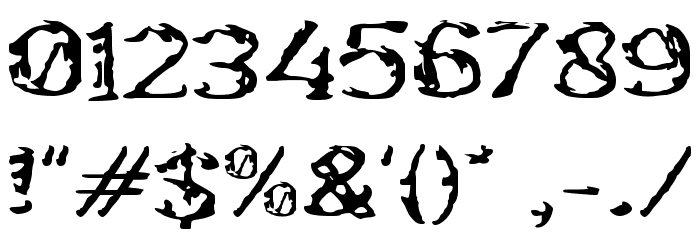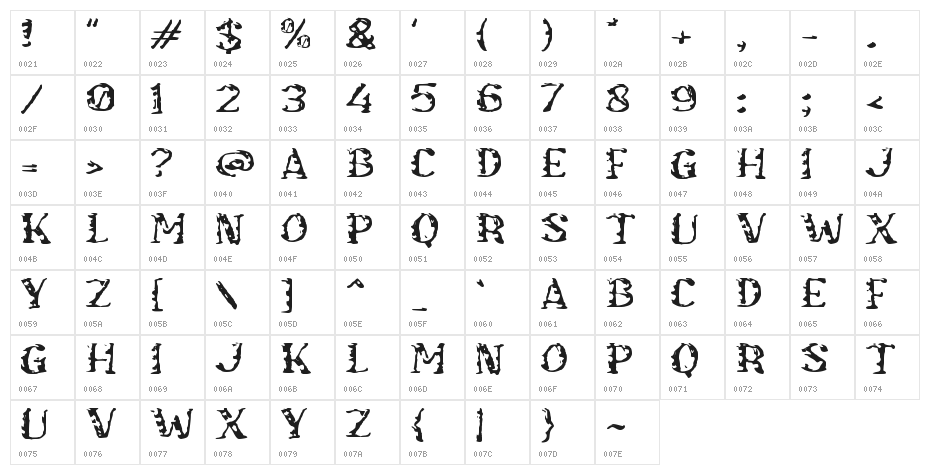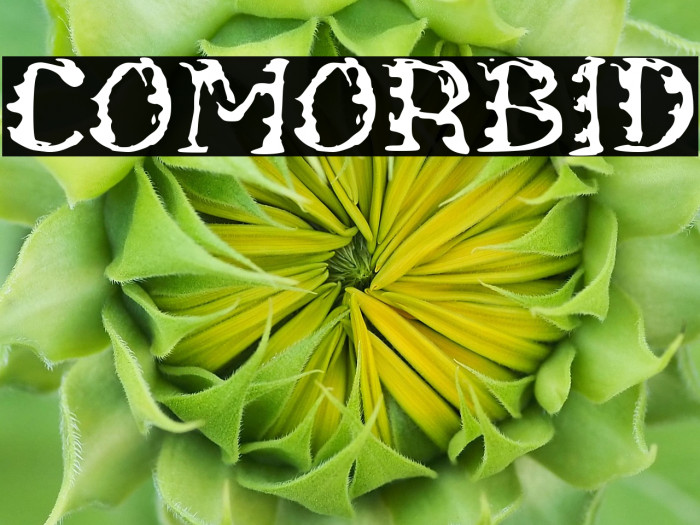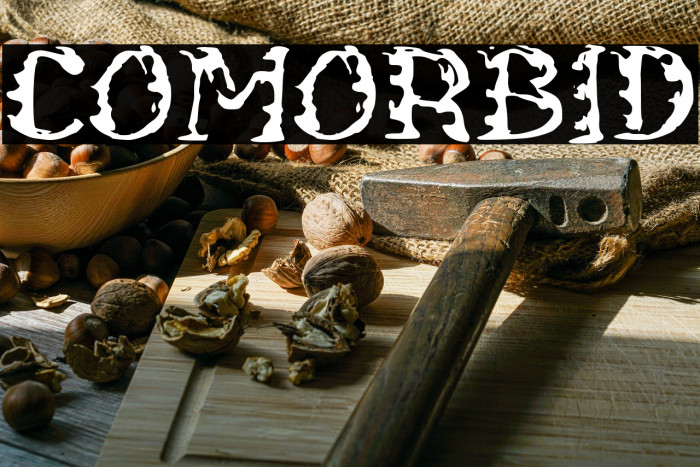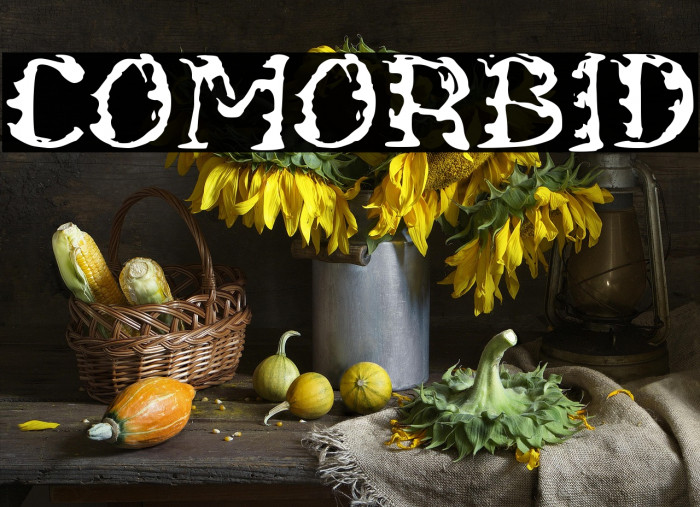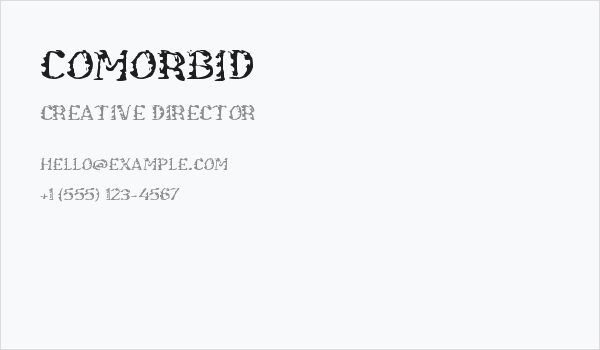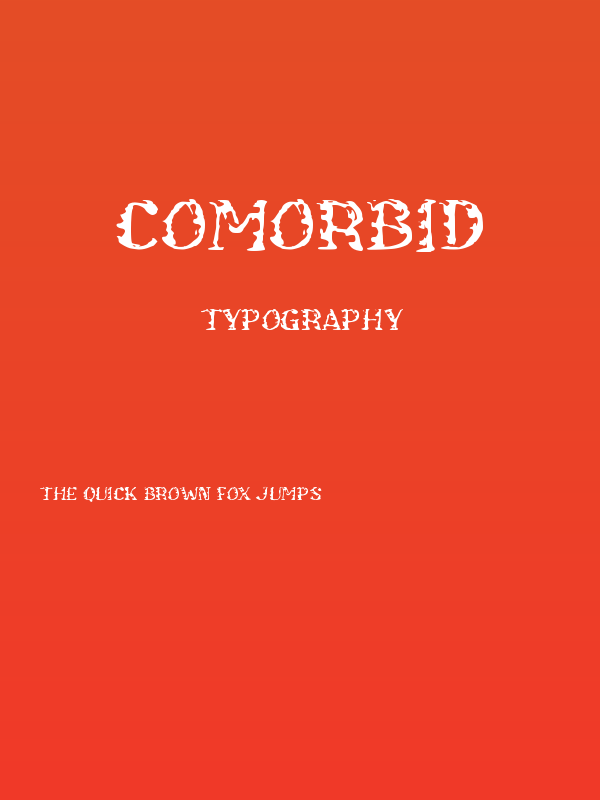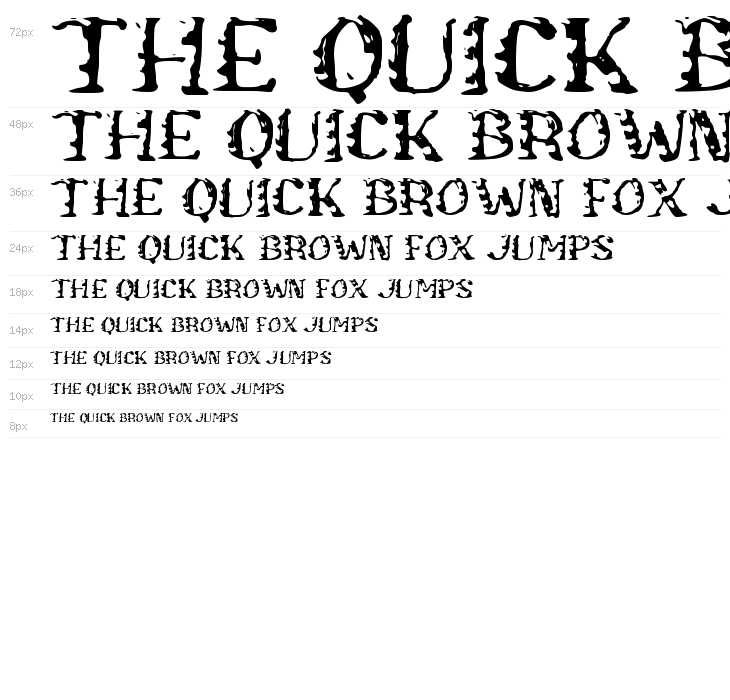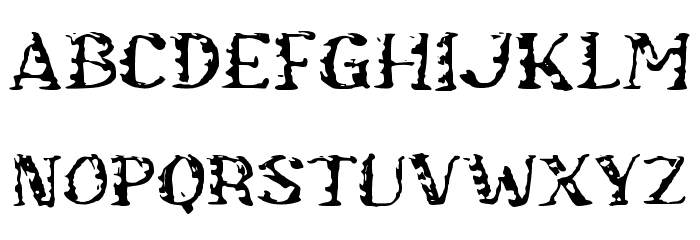
Comorbid Font
Comorbid Description
This font features a rugged, distressed appearance with irregular edges and a bold presence. Each character appears as if it has been weathered or eroded, giving it a unique, grunge-like aesthetic. The uppercase and lowercase letters maintain a consistent style, with the numerals and special characters following suit. The font's design is highly decorative, making it stand out with its bold and artistic flair. It is well-suited for projects that require a strong visual impact, such as posters, album covers, or themed event invitations.